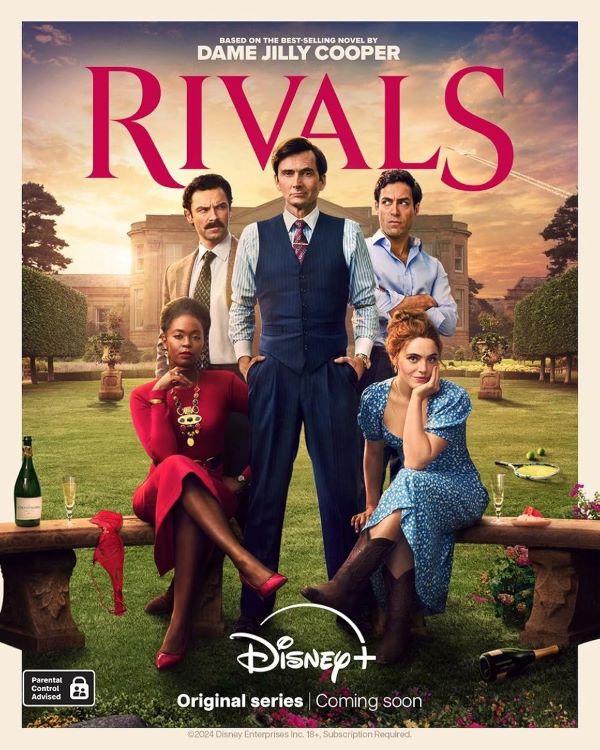
Rivals Font
What Font is Rivals Font?
The Rivals Font used in the title of the series closely resembles Goudy Titling Bold, a premium serif typeface known for its elegance and timeless sophistication. Its tall, graceful lettering and refined serifs perfectly match the show’s tone — one of ambition, rivalry, and power beneath a polished surface. The typeface’s classic charm enhances the dramatic tension and prestige that defines the series’ world.
About Rivals
Rivals (2025) is a British drama television series created by Dominic Treadwell-Collins and Alexander Lamb, based on the novel by Jilly Cooper. The show stars David Tennant, Aidan Turner, Danny Dyer, and Emily Atack. Set in the glamorous and competitive world of 1980s British television, it explores fierce professional rivalries, power struggles, and romantic entanglements among the elite. With its mix of sharp wit, scandal, and style, Rivals delivers a bold and entertaining portrait of ambition and excess.